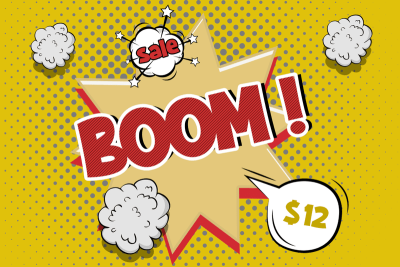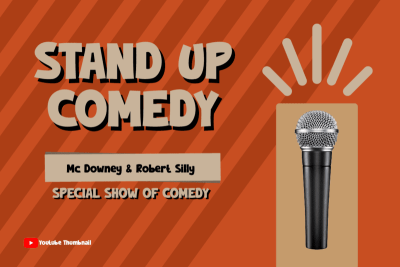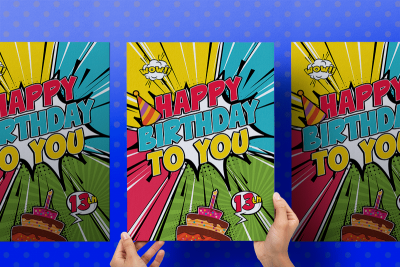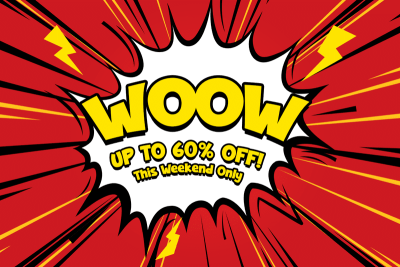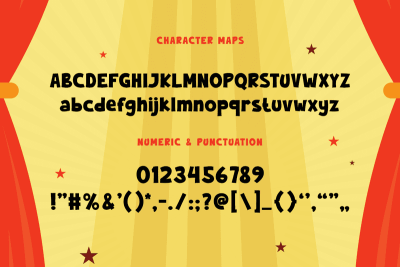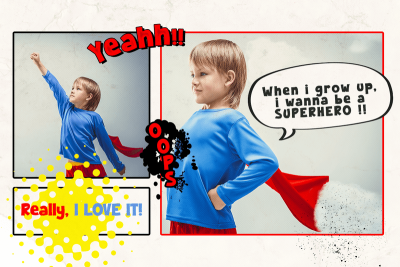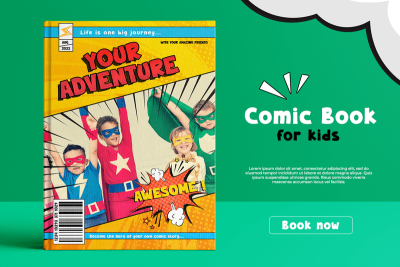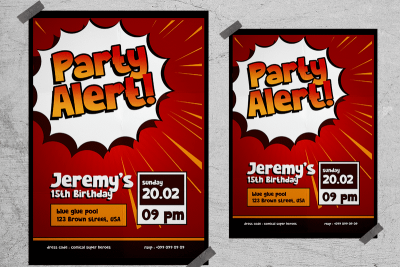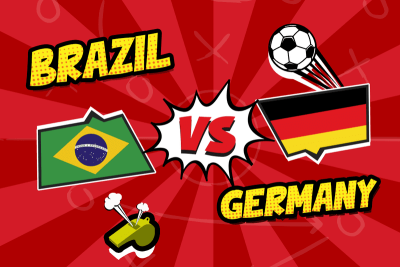
Quick Fox
Kids Font Quick Fox is a vibrant and energetic comic-style display font that brings fun and excitement to your projects. Inspired by the bold and dynamic lettering of classic comic books, this font combines thick, rounded strokes with playful letterforms. As a result, its cheerful and animated design grabs attention immediately, making it an excellent choice for kid-friendly or playful designs.
In addition, this font adds action and adventure to any project with its bright and engaging style. Furthermore, its bold letter shapes ensure readability, while the comic-inspired aesthetic injects personality and charm. You can easily use it for posters, book covers, or playful branding materials to create a lively and memorable look.
Kids Font Quick Fox Ideal for
Kids Font Quick Fox works perfectly for creators who want to infuse boldness and energy into their projects. Specifically, designers can use it for:
• Children’s comics and storybooks: Bring titles and covers to life with vibrant, comic-style lettering.
• Posters and banners: Grab attention with playful text that is ideal for events, parties, or promotions.
• Educational materials: Add excitement to worksheets, flashcards, or classroom decorations, making learning more fun.
• Party invitations: Set the mood for superhero or cartoon-themed parties with fun, action-packed typography.
• Digital content: Make YouTube thumbnails, social media graphics, or video titles stand out with bold and dynamic text.
• Kids’ product branding: Enhance toy packaging, board games, or kids’ apparel with a playful and friendly vibe.
Moreover, this font also fits projects that need comic-book charm or nostalgia. For example, you can use it in promotional materials for comic stores or superhero campaigns to evoke excitement and fun.
In conclusion, whether you’re a designer, educator, or parent, Kids Font Quick Fox brings a sense of joy and adventure to your work. Its bold style ensures your message stands out while making your designs playful and engaging.
Do you want attention? YOU GOT IT! Everything that is written with QUICK FOX will get instantly recognizable and grab the reader’s attention.